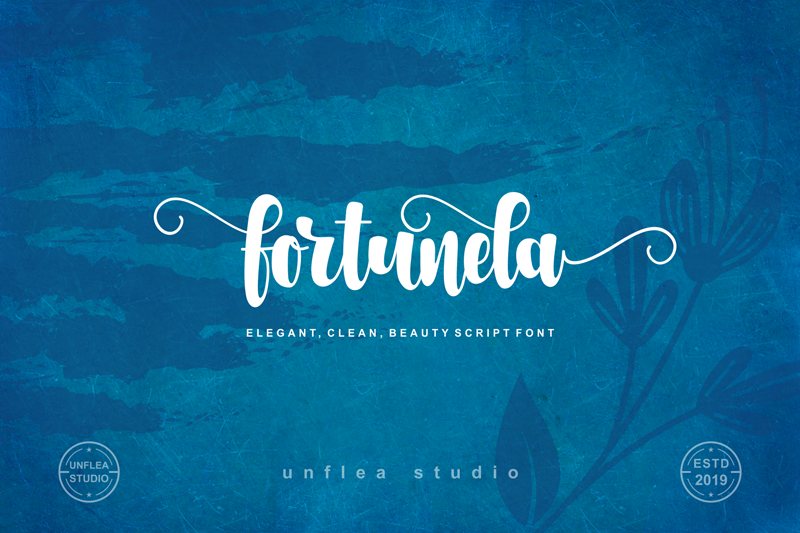
Font name: | Fortunela |
Author: | Unflea Studio |
Note by Unflea Studio | |
fortunela is made with original hand written style. it's clean, simple and more girly looks font. it's good on titles, logos, fashion magazine, quotes, print template and other designs needed. fortunela made with more than 60 lowercase alternates. for complete gliphs and commercial licence, please visit our https://www.creativefabrica.com/designer/unflea-studio/ or email us at unflea@gmail.com |